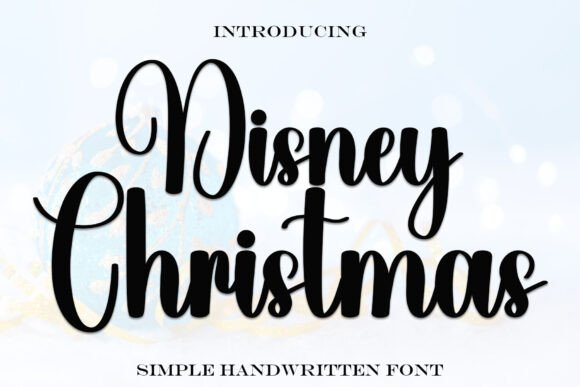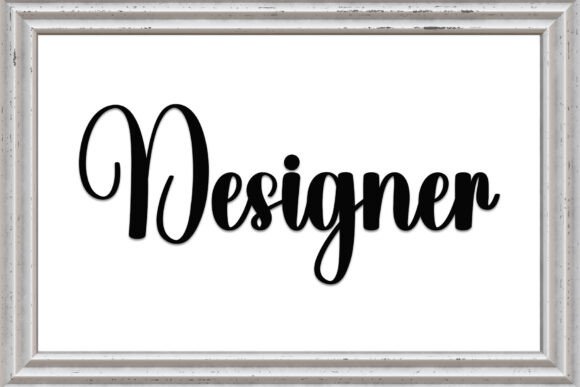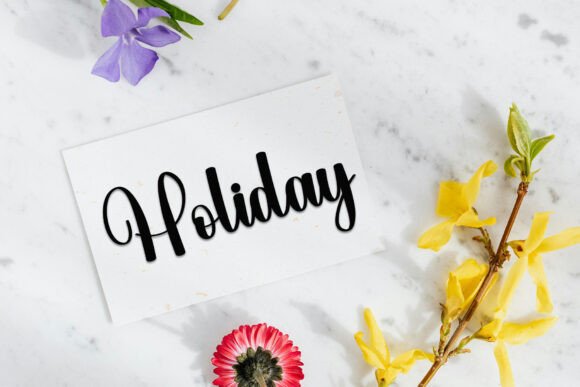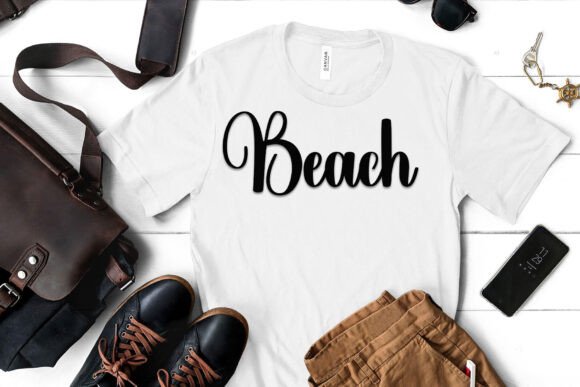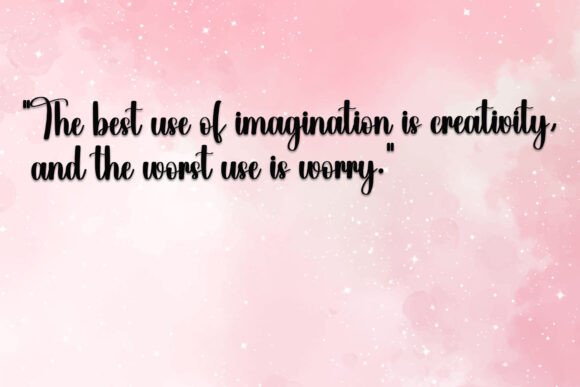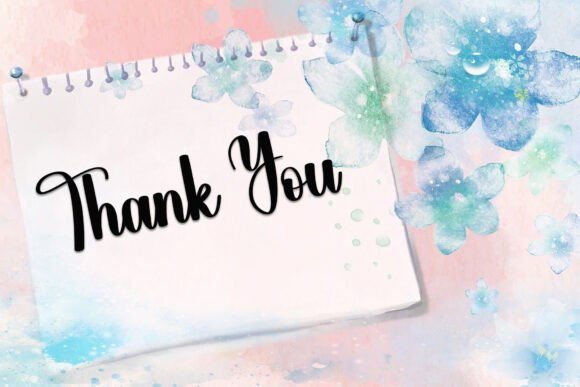
The Magic of Disney Christmas Font: A Holiday Design Delight
As the snowflakes start to fall and the fireplace crackles to life, the holiday season is in full swing. You’re probably brainstorming ideas for your favorite projects, like greeting cards or gift labels, to make this year’s celebrations truly special. That’s when the magic of typography kicks in, and you find yourself daydreaming of the perfect font to capture the essence of the season.
Enter Disney Christmas Font, a festive and joyful typeface that embodies the spirit of the holiday season. With its whimsical decorations and unique flair, this font is perfect for adding a touch of charm to your designs. Whether you’re a seasoned designer or a holiday enthusiast, Disney Christmas Font is a valuable asset that will bring a cheerful and nostalgic atmosphere to your words.
Disney Christmas Font Key Features
- Unique Characteristics: The font features a playful, cursive script with a festive holiday theme, making it ideal for Christmas and winter-themed designs.
Designer Review: Disney Christmas Font
I recently had the chance to work with the Disney Christmas Font, and I have to say it’s a fun, festive addition to any holiday project ✨. The font’s playful, cursive style is perfect for adding a touch of whimsy to Christmas cards, gift tags, or even social media posts.
One of the things I appreciate about this font is its versatility. It’s available in a range of weights, from light to bold, making it easy to customize for different design needs. I also appreciate the font’s compatibility with various design software, including Adobe Illustrator and Canva ✨.
- Playful, cursive style perfect for holiday designs
- Available in a range of weights for customization
- Some users may find the font too ornate or over-the-top
- Limited to holiday designs, may not be suitable for other projects
- Not as modern or sleek as some other font options
Overall, I think the Disney Christmas Font is a fun, festive choice for holiday designs. While it may not be the best option for every project, it’s perfect for adding a touch of magic to your holiday designs ✨.
Use the Disney Christmas Font for festive holiday projects, such as:
- Holiday cards and invitations
- Party decorations and signage
- Gift tags and wrapping paper
Remember to pair the font with complementary colors and design elements to create a cohesive and festive look.